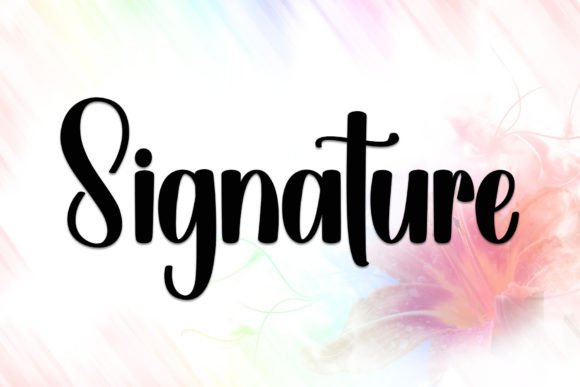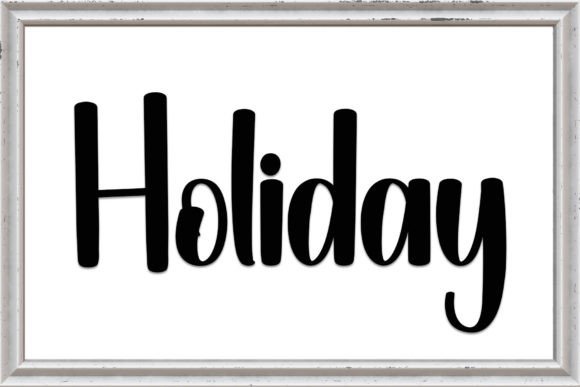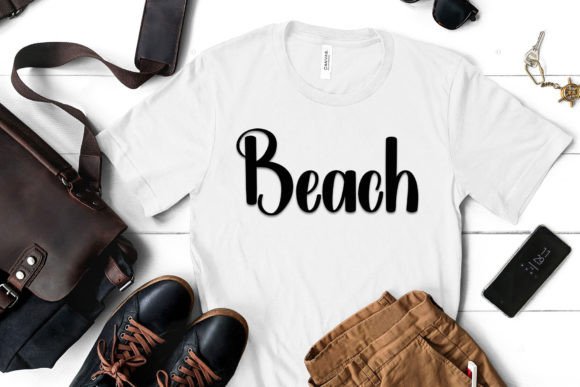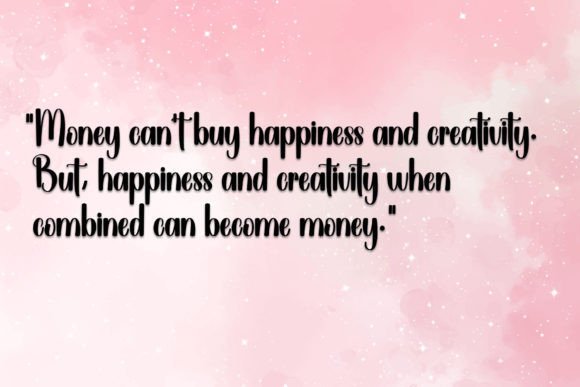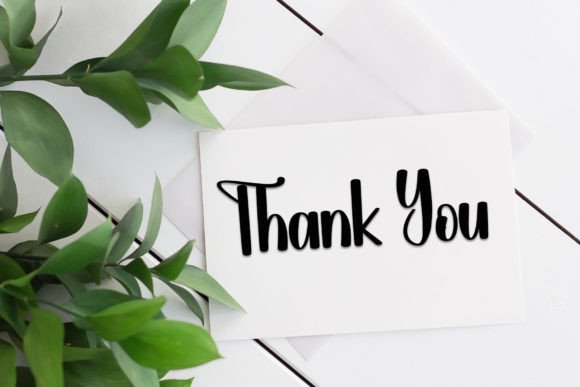
Getting into the Holiday Spirit with the Breast Cancer Font
There’s something magical about curling up with a warm cup of hot chocolate and a blank card, waiting for inspiration to strike. For many of us, the holiday season is a time of joy and creativity, and the perfect font can make all the difference in bringing our designs to life. This is where the Breast Cancer Font comes in – a festive and happy typeface that captures the spirit of the holiday season.
With its decorative elements and unique flair, the Breast Cancer Font adds a touch of charm to your designs, making it perfect for greeting cards, gift labels, and holiday-themed projects. And with its PUA coding, you can easily access all the amazing glyphs and ligatures to take your designs to the next level. As a designer, you’ll love the Breast Cancer Font for its ability to bring a cheerful and nostalgic atmosphere to your words.
Breast Cancer Awareness Font Key Features
- Unique Characteristics: Features a custom-designed, bold, and eye-catching design, making it ideal for breast cancer awareness campaigns and fundraising events.
Designer Review: Breast Cancer Font
When I first saw the Breast Cancer Font, I was intrigued by its unique purpose. The font aims to raise awareness and funds for breast cancer research by donating a portion of its sales to the cause. Let’s dive into what works well and what doesn’t.
- Unique concept: The font’s purpose is both creative and impactful, making it stand out from other fonts.
- Color scheme: The use of pink and white is a classic and recognizable color scheme associated with breast cancer awareness.
- Monetary support: The font’s commitment to donating a portion of its sales to breast cancer research is commendable.
- Limited versatility: The font may be too bold and attention-seeking for some designers, potentially limiting its use in various projects.
- Lack of subtlety: The font’s message may come across as too obvious or heavy-handed, potentially alienating some designers who prefer more understated designs.
- Potential clichés: The use of a pink and white color scheme may be seen as a cliché in the design world, potentially detracting from the font’s impact.
Overall, I appreciate the Breast Cancer Font’s creative approach to raising awareness and funds for a good cause. While it may not be the most versatile or subtle font, its unique concept and commitment to charity make it a worthwhile consideration for designers looking to make a positive impact.
Use the Breast Cancer Font to add a touch of awareness to your designs, such as:
- Creating posters for breast cancer awareness campaigns.
- Designing t-shirts or merchandise with breast cancer awareness messages.
- Adding a personal touch to fundraising events or charity initiatives.
The Breast Cancer Font is commonly used in:
- Breast cancer awareness campaigns.
- Charity fundraising events.
- Personalized gifts or merchandise for breast cancer survivors or supporters.